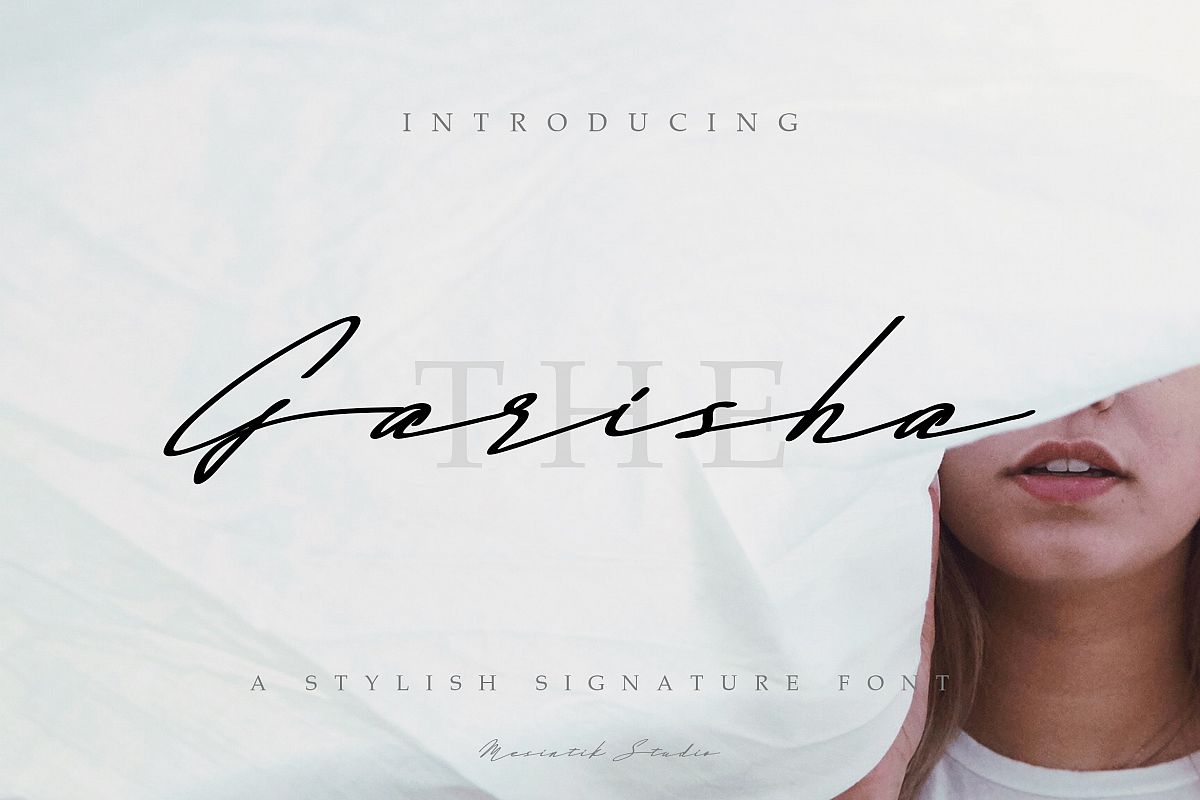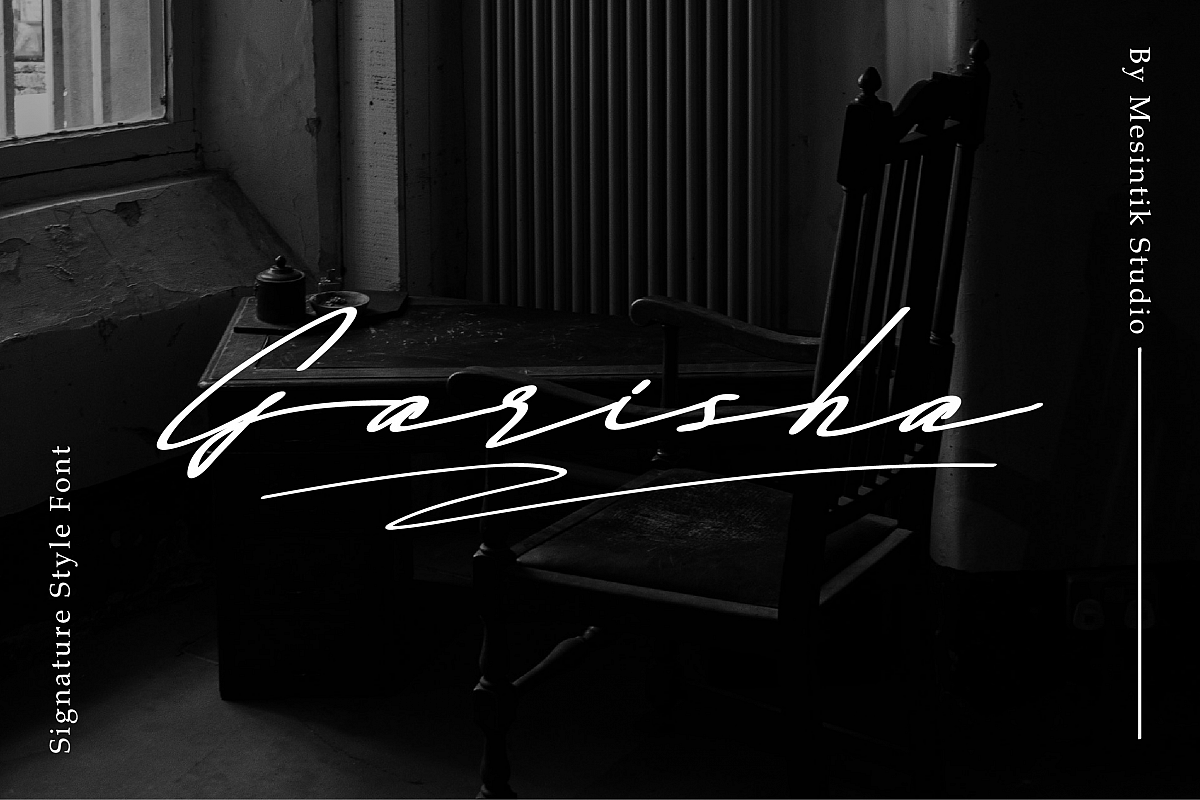
The Garisha
The Garisha is a signature font script that perfect for photography, watermark, advertisements, logos & branding, invitation, social media posts, label, stationery, wedding designs, product packaging, special events or anything that need handwriting taste.
• Ligature & Stylistic alternate
The Garisha